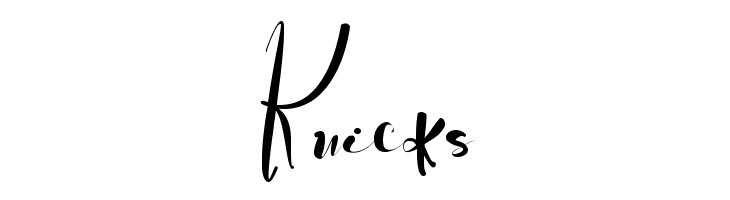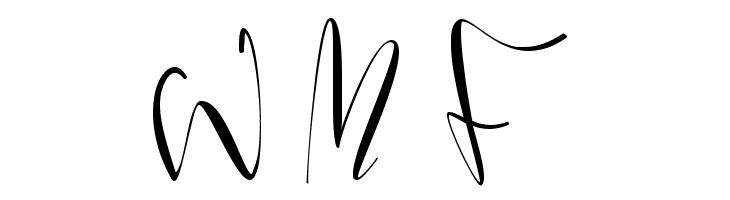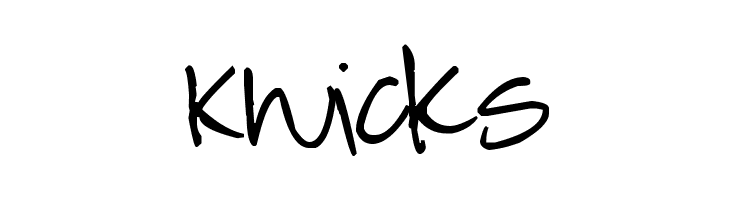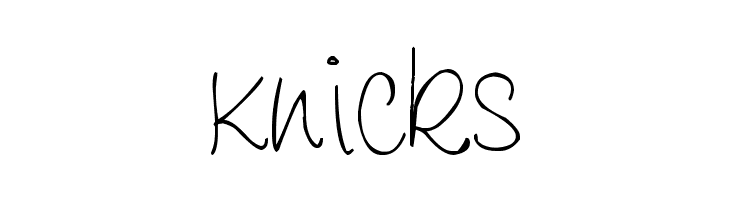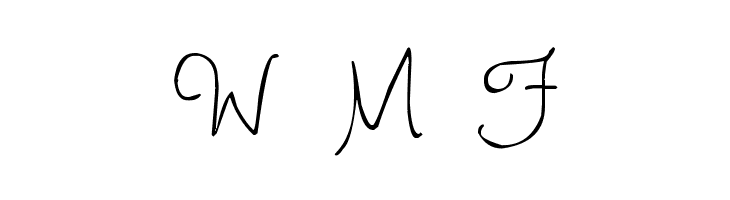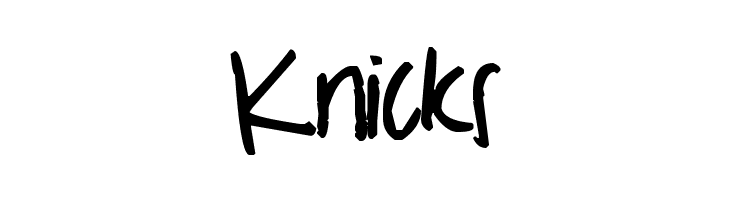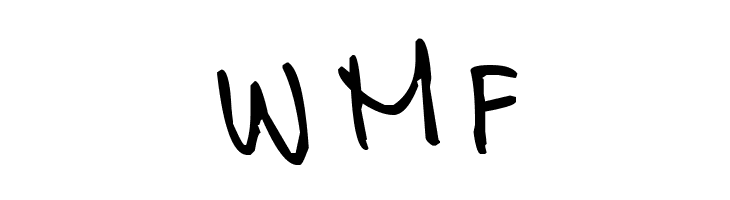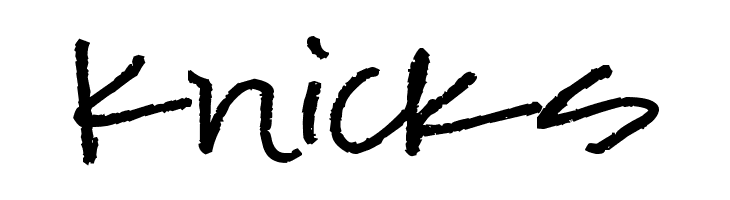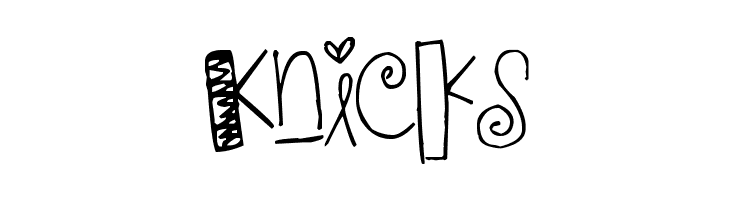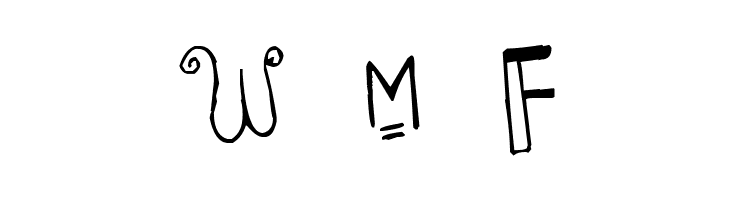
• Pea Righton
A playful, casual handwritten font with uneven strokes.
• Pea Rowan Schaefer
A playful, handwritten font with dynamic strokes and whimsical loops.
• Pea Sandra Dee
A playful, handwritten font with a whimsical and dynamic style.
• Pea Summer Funkyness
A playful, hand-drawn font with whimsical and decorative elements.
• Pea Summer Sweetness
A playful, handwritten font with a casual and whimsical style.
• Pea Taryn
A playful, handwritten font with a casual and dynamic style.
• Pea Terri Cherie
A playful, casual handwritten font with free-flowing strokes and uneven spacing.
• Pea Tiphanie
A casual, playful handwritten font with fluid strokes.
• Pea Tung
A bold, playful handwritten font with expressive strokes and a casual vibe.
• Peach Queen
A dynamic, expressive script font with a handwritten style.